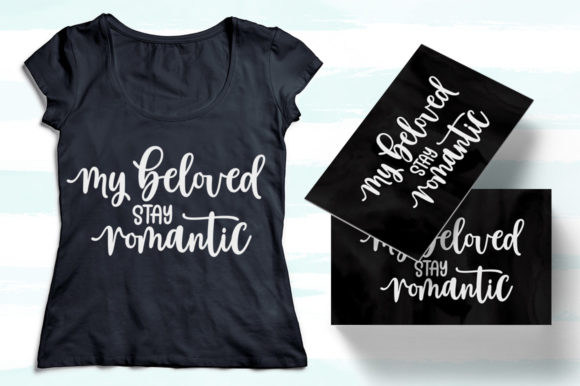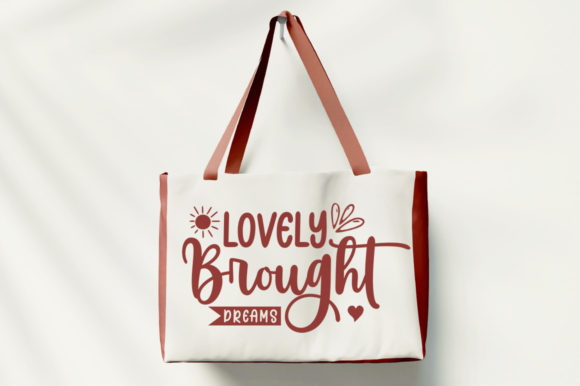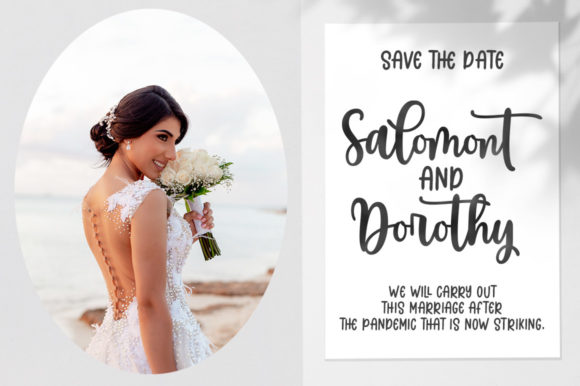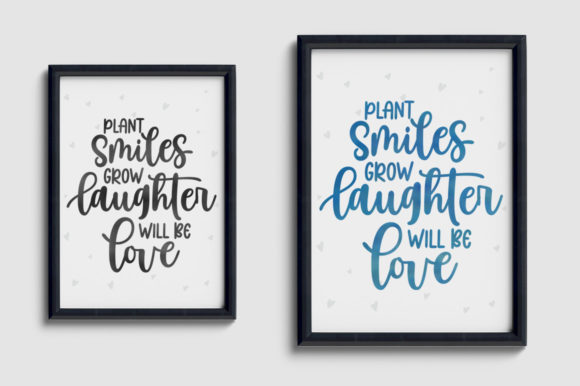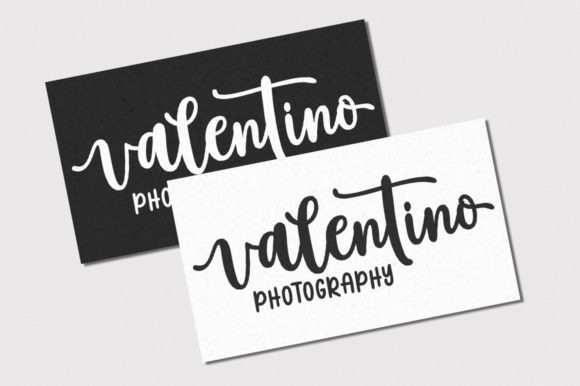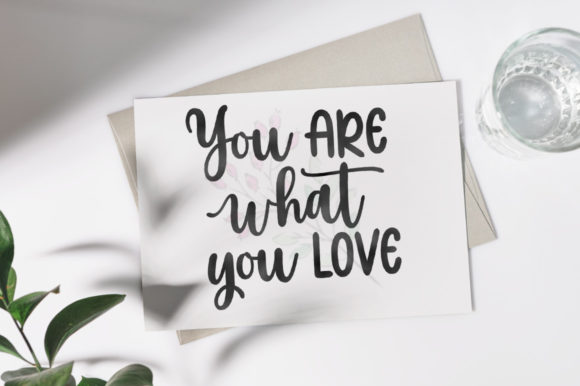
Discover the Best Younglady Font for Your Design Needs
Are you tired of using the same old fonts in your designs? Look no further! The Best Younglady font is a stunning duo font that combines a sans serif and script font to bring a touch of elegance and class to your creations. In this article, we’ll dive into the features and benefits of the Best Younglady font, and explore how it can elevate your designs to the next level.
What is Best Younglady Font?
Best Younglady is a carefully crafted font duo that consists of a sans serif and script font. This beautiful combination allows designers to add a touch of sophistication and refinement to their work. The font is perfect for those who need a fresh and beautiful look to enhance their designs, whether it’s for a logo, branding, packaging, or social media graphics.
Key Features of Best Younglady Font
• Elegant and Classy Design: The Best Younglady font boasts an elegant and classy design that exudes sophistication and refinement.
• Duo Font Combination: The font duo consists of a sans serif and script font, providing versatility and flexibility in design.
• Beautiful and Refreshing Look: The font is perfect for adding a fresh and beautiful look to your designs, making them stand out from the crowd.
• Easy to Read: The sans serif font is easy to read, making it perfect for body text, while the script font adds a touch of elegance to headings and titles.
So, why should you choose the Best Younglady font for your design needs? Here are just a few benefits:
• Enhance Your Brand’s Visual Identity: The Best Younglady font can help you create a unique and recognizable visual identity for your brand.
• Stand Out from the Crowd: The font’s elegant and classy design will help your designs stand out from the competition.
• Perfect for Various Design Projects: The Best Younglady font is versatile and can be used for a wide range of design projects, from logos and branding to packaging and social media graphics.
• Easy to Pair with Other Fonts: The font duo is easy to pair with other fonts, making it simple to create a cohesive look.
Who Can Benefit from Best Younglady Font?
The Best Younglady font is perfect for:
• Graphic Designers: Add a touch of elegance and sophistication to your designs with this beautiful font duo.
• Crafters: Use the Best Younglady font to create stunning handmade cards, scrapbook pages, and other craft projects.
• Small Business Owners: Enhance your brand’s visual identity with this unique and recognizable font.
• Marketing Agencies: Use the Best Younglady font to create eye-catching marketing materials that will help your clients stand out.
In conclusion, the Best Younglady font is a beautiful and versatile font duo that can elevate your designs to the next level. With its elegant and classy design, duo font combination, and easy-to-read sans serif font, it’s perfect for a wide range of design projects. Whether you’re a graphic designer, crafter, small business owner, or marketing agency, the Best Younglady font is a must-have in your font collection.